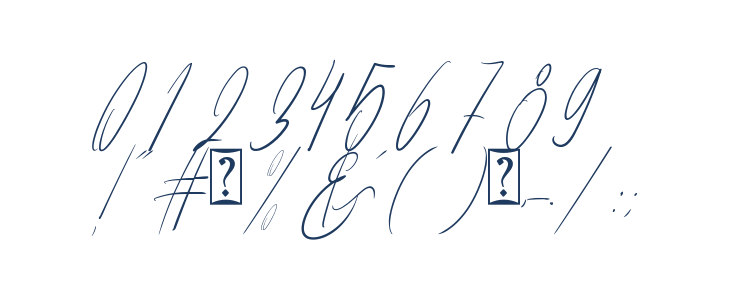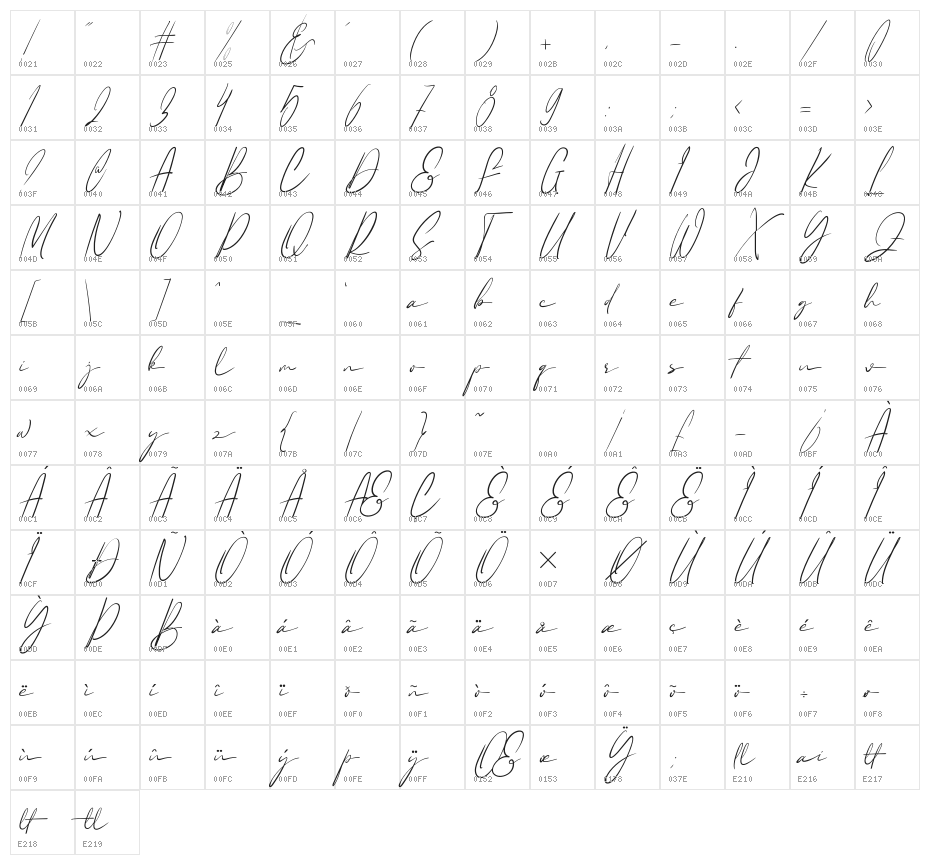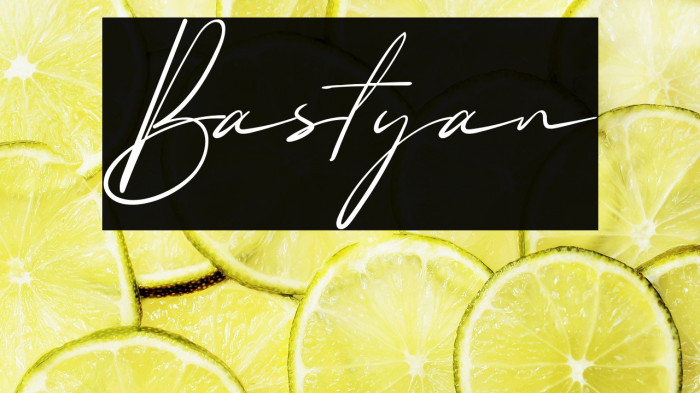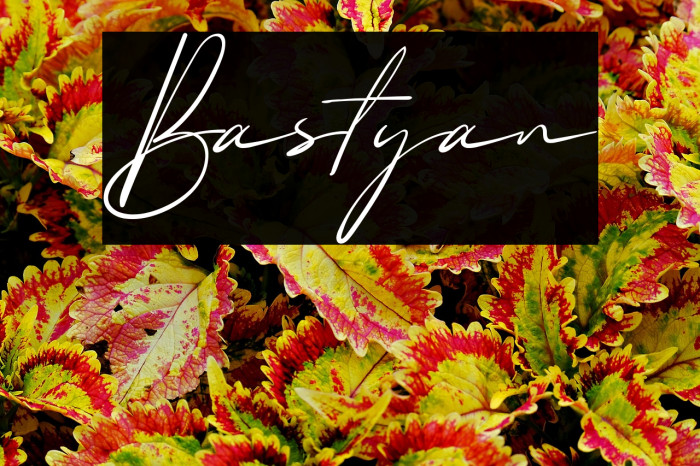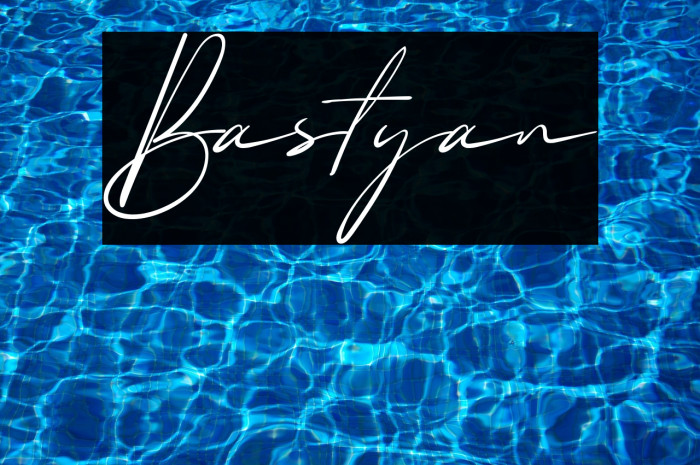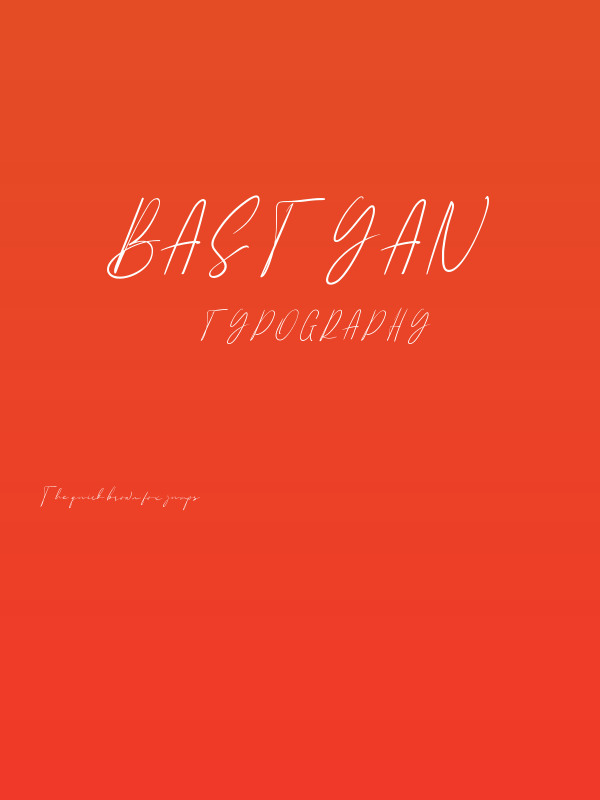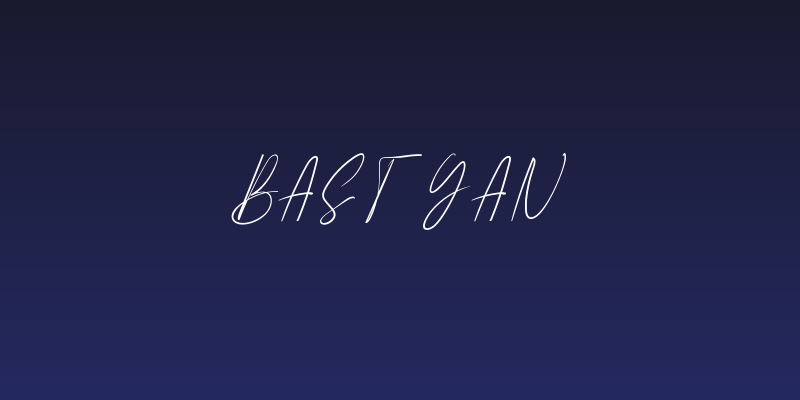
Bastyan Font
Bastyan Description
This font exudes a sophisticated and elegant style, characterized by its fluid, cursive script that mimics natural handwriting. The letters are interconnected with smooth, flowing lines, giving it a graceful and dynamic appearance. The uppercase letters are tall and slender, while the lowercase letters maintain a consistent flow, enhancing readability. The numerals and special characters are designed with the same fluidity, ensuring a cohesive look across all characters. This font's delicate strokes and artistic flair make it ideal for projects that require a personal touch.